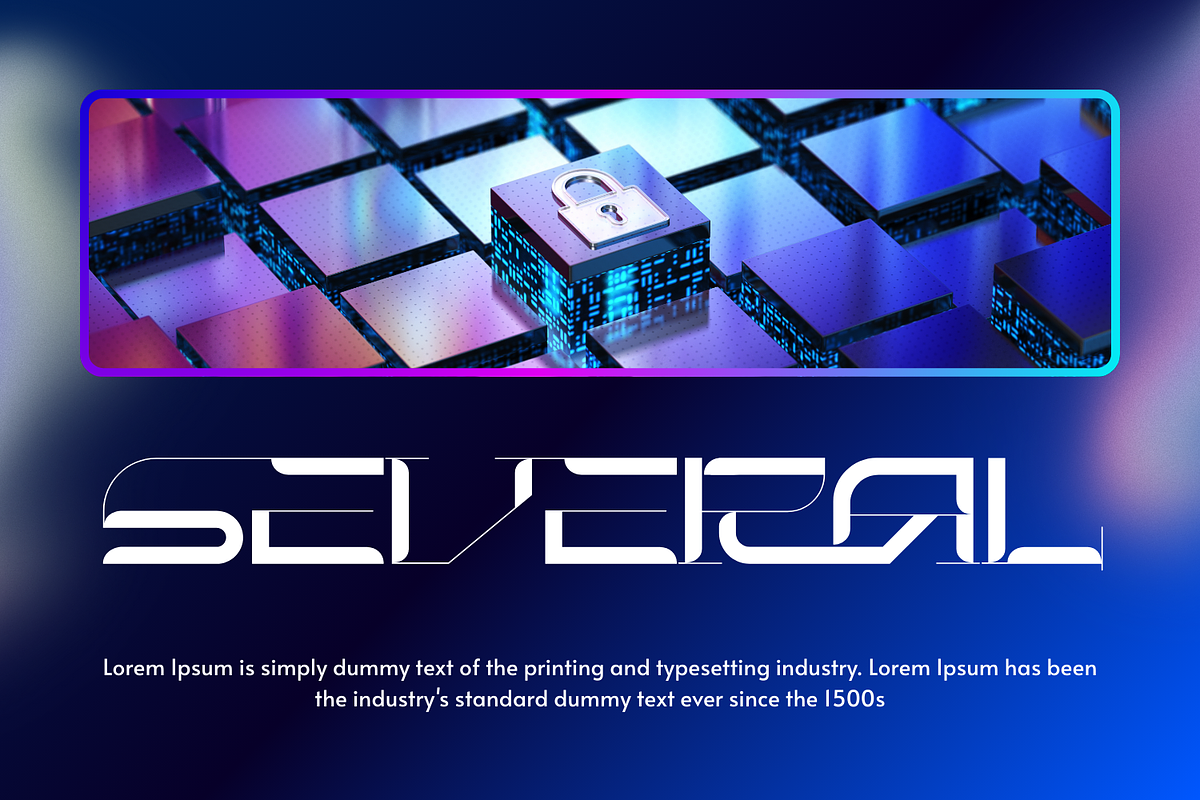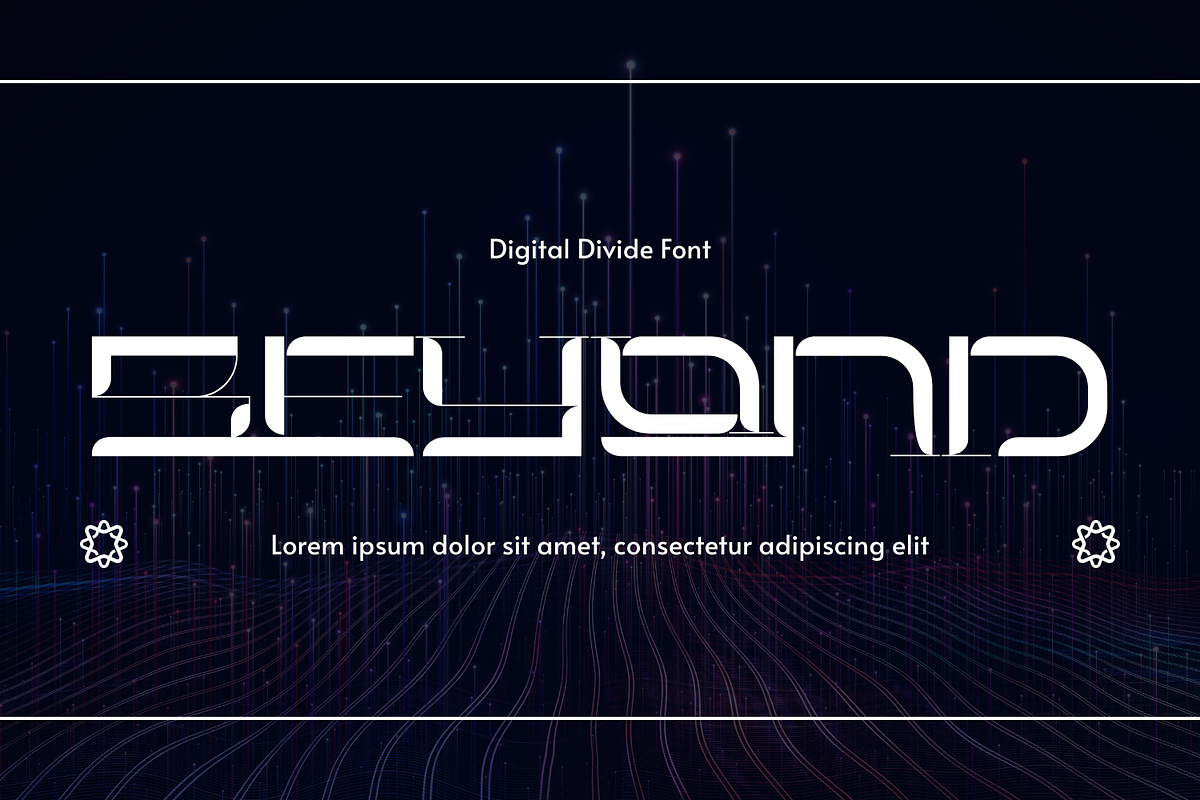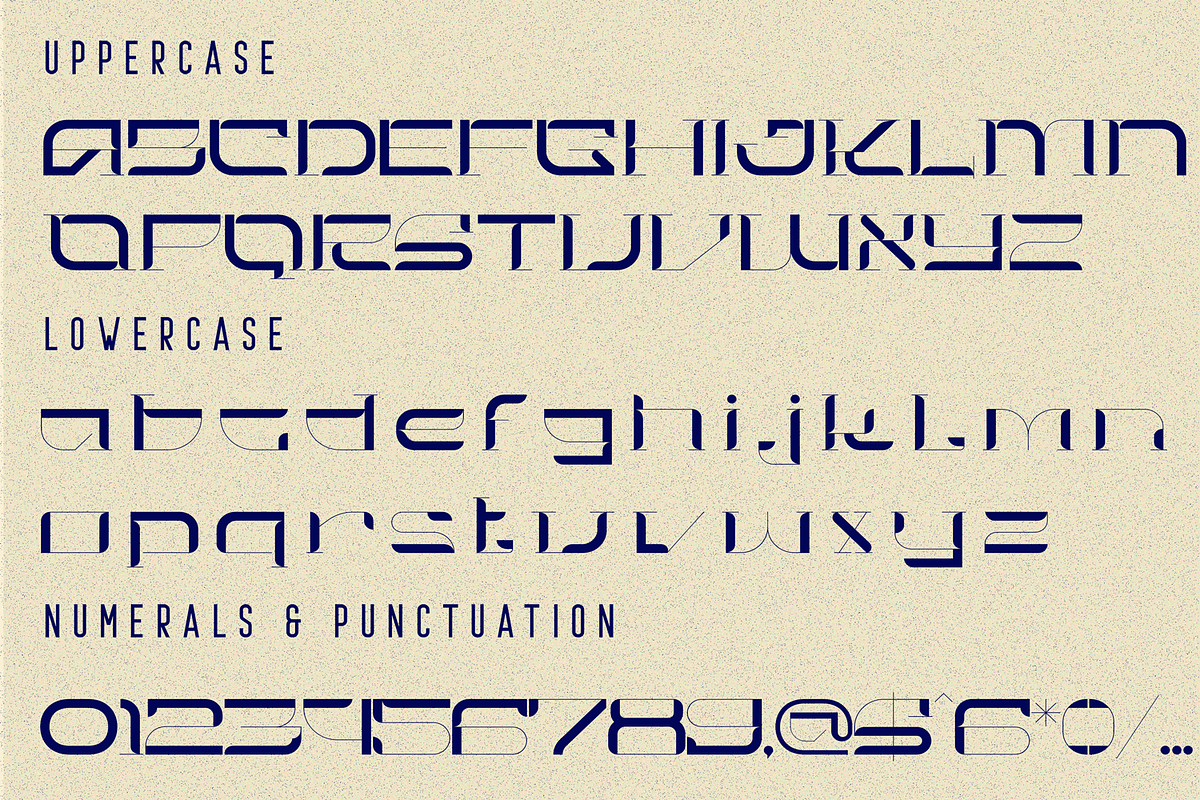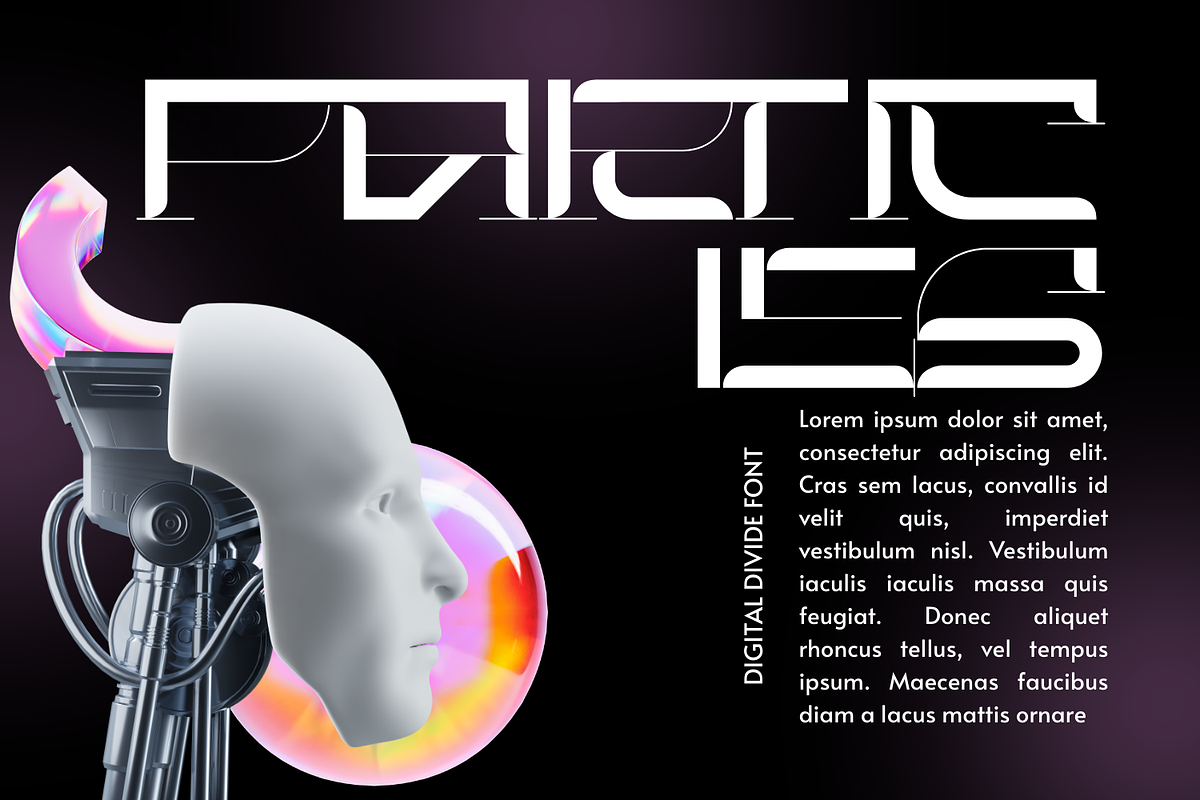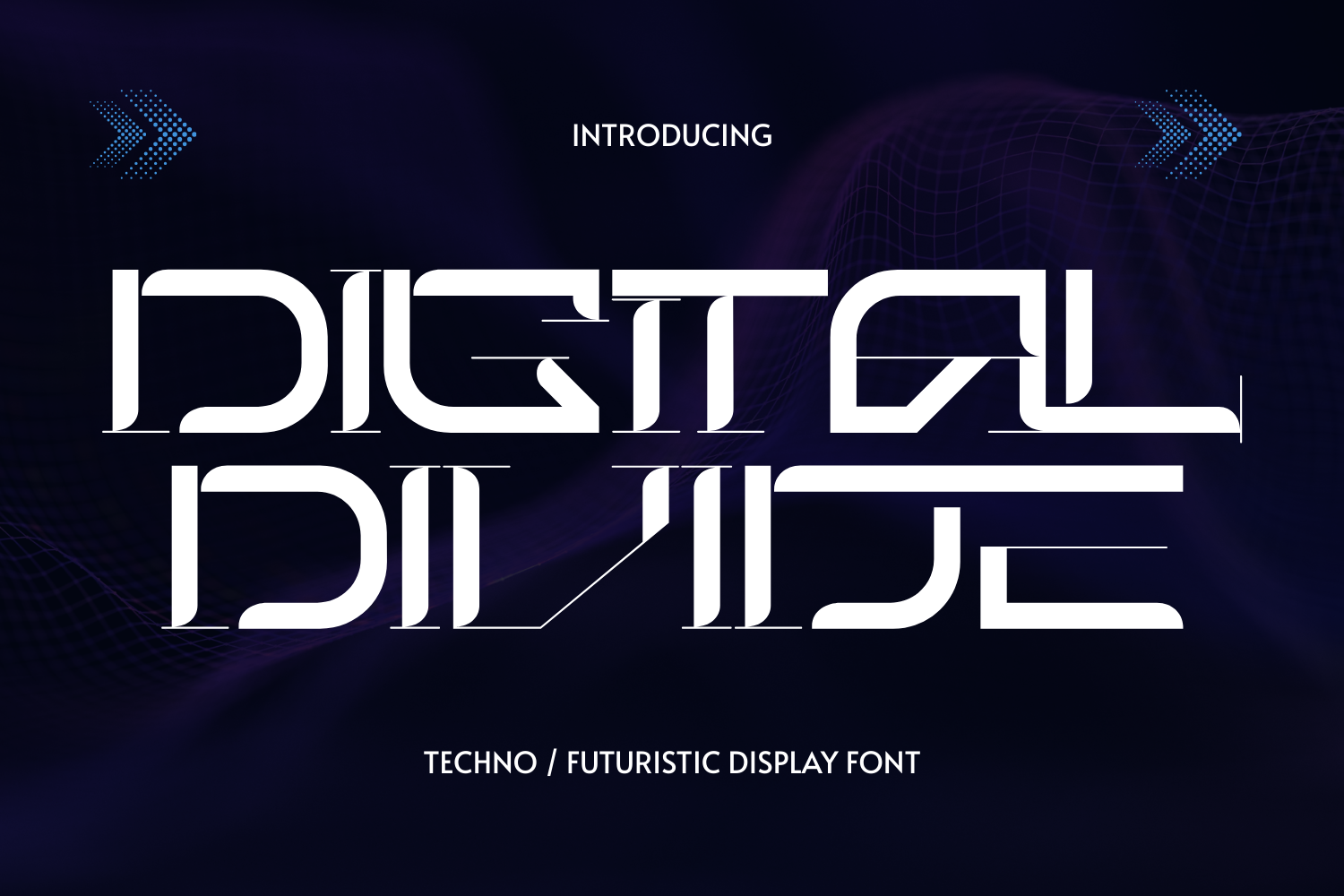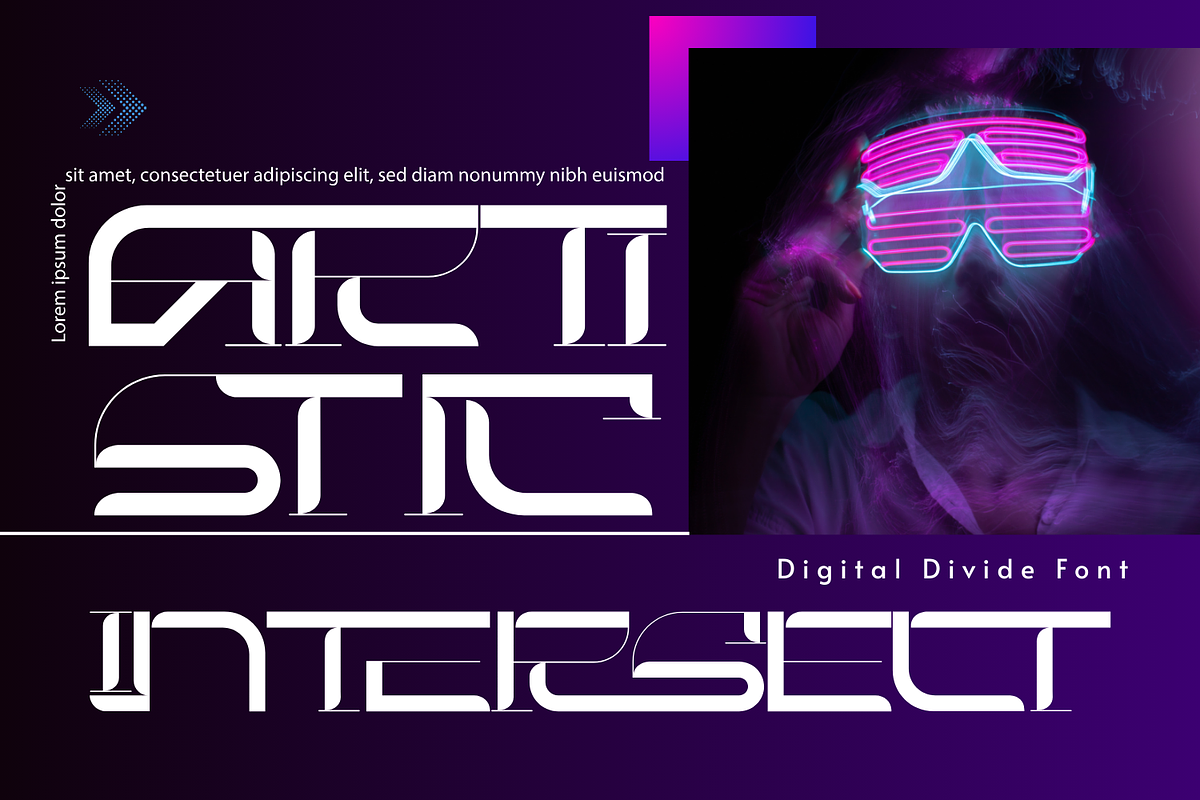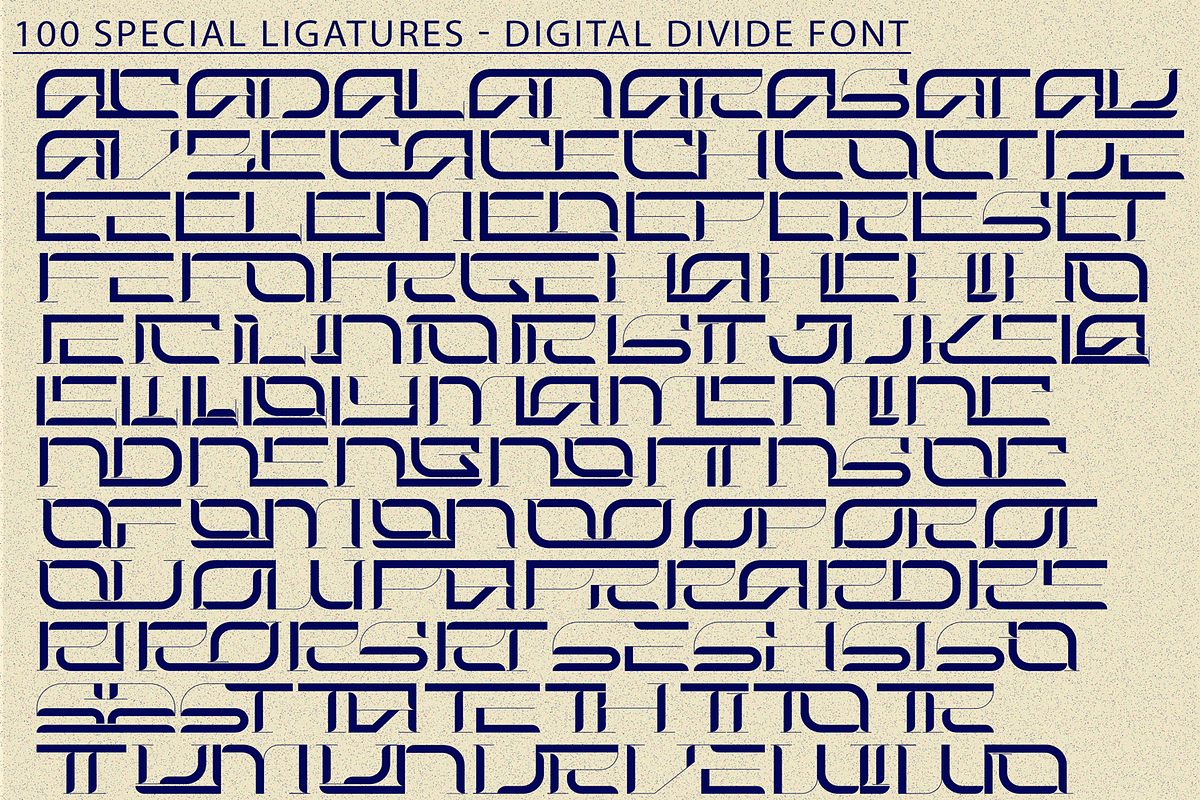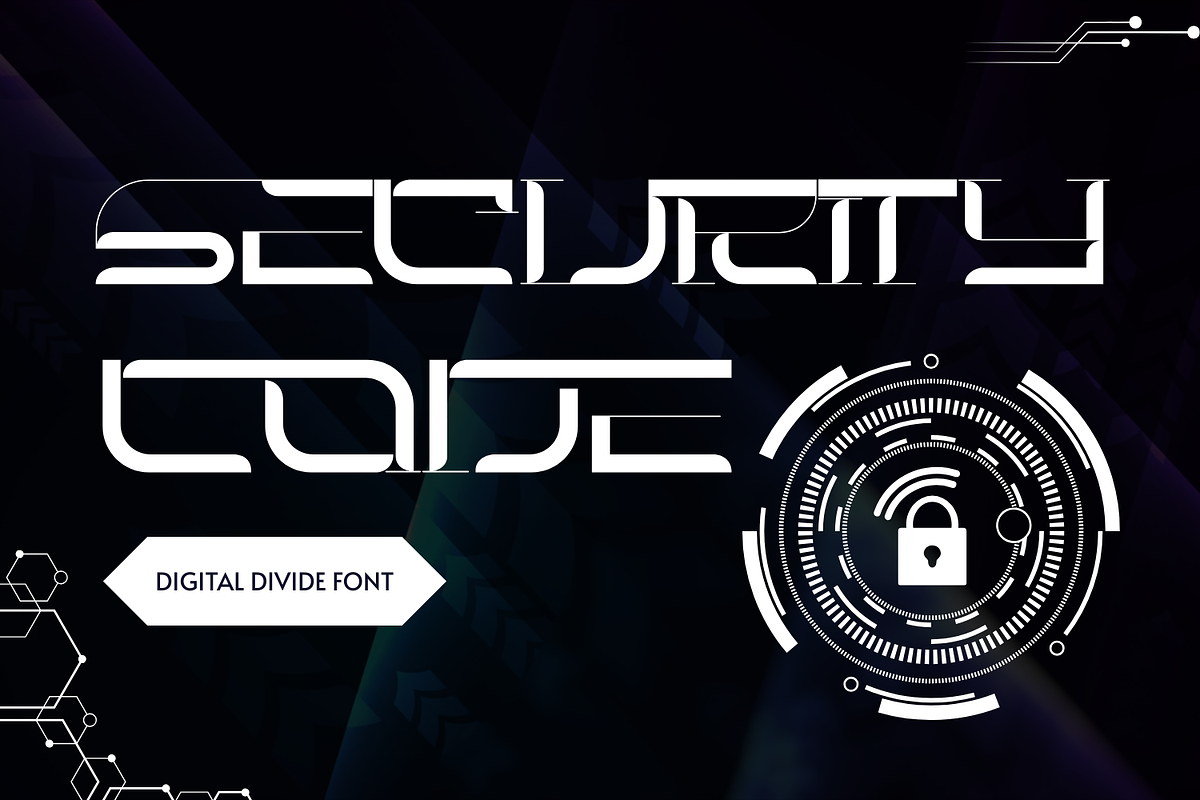
DIGITAL DIVIDE - FUTURISTIC FONT
DIGITAL DIVIDE - FUTURISTIC FONT, a revolutionary typeface engineered for the digital frontier. This is a powerful, architectural font that perfectly balances sharp traditional serifs with a clean, futuristic geometry. The design is characterized by its dramatic contrast: bold, authoritative vertical strokes meet sleek, hairline horizontal elements, lending an aura of technical precision. Its defining feature is the strategic use of negative space and digital cuts, giving the letters a sophisticated, fragmented look—perfect for conveying innovation, speed, and high technology. DIGITAL DIVIDE is the ultimate choice for branding, headlines, and posters in the tech, gaming, automotive, and sci-fi industries. It commands attention and delivers a message of modern, pioneering design.
- Uppercase & Lowercase Letters
- Around 100 Special Ligatures & Alternates
- Accented Characters for multilingual support
About 100 ligatures combined with Stylistic Alternates Font:
AC AD AL AN AR AS AT AU AV BE CA CE CH CO CT DE DI EA EC ED EE EL EM EN EP ER ES ET FE FO FR GE HA HE HI HO IE IC IL IN IO IR IS IT JU KE LA LE LI LL LO LY MA ME MI NC ND NE NG NO NT NS OC OF OM ON OO OP OR OT OU OW PA PR RA RD RE RI RO RS RT SE SH SI SO SS ST TA TE TH TI TO TR TT UM UN UR VE WI WO